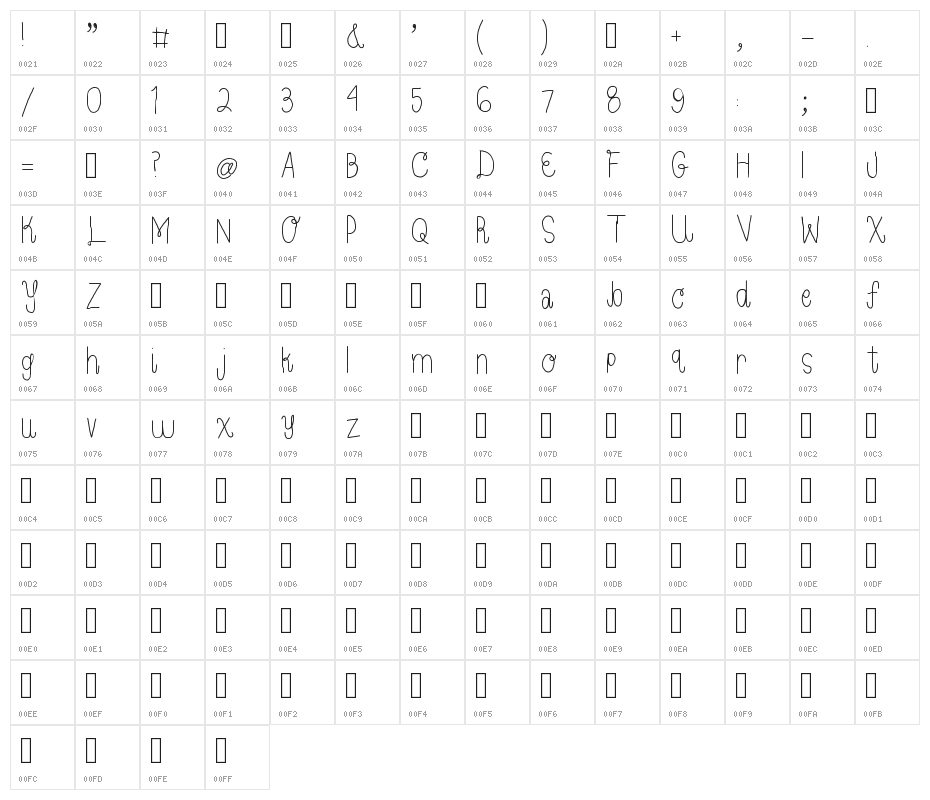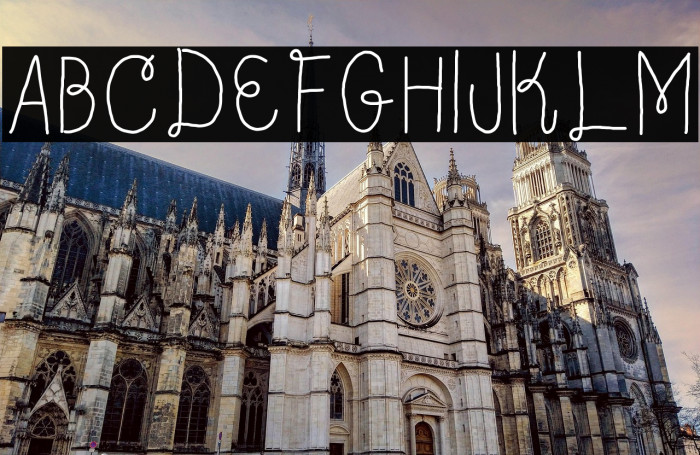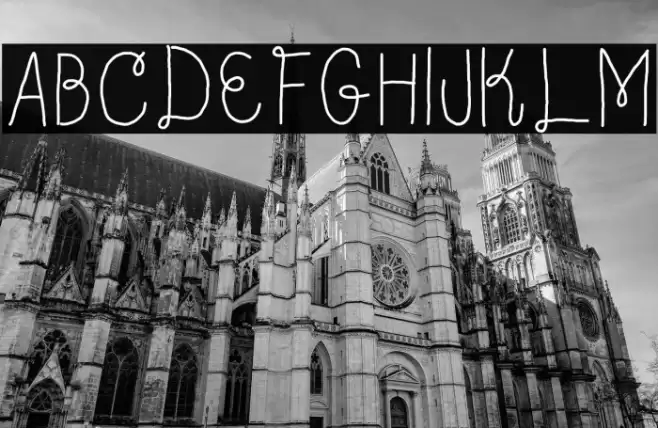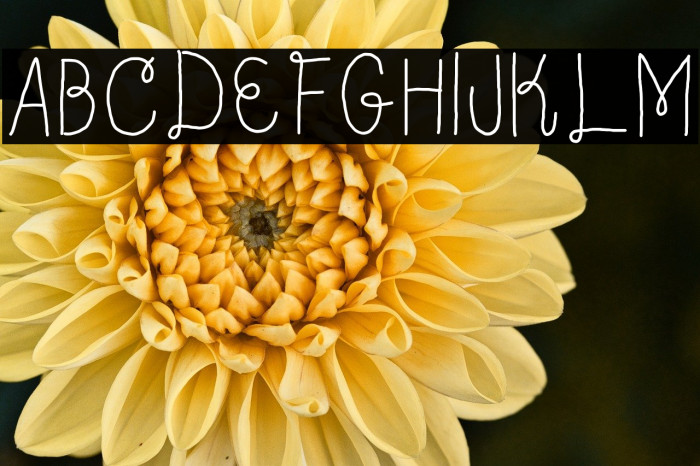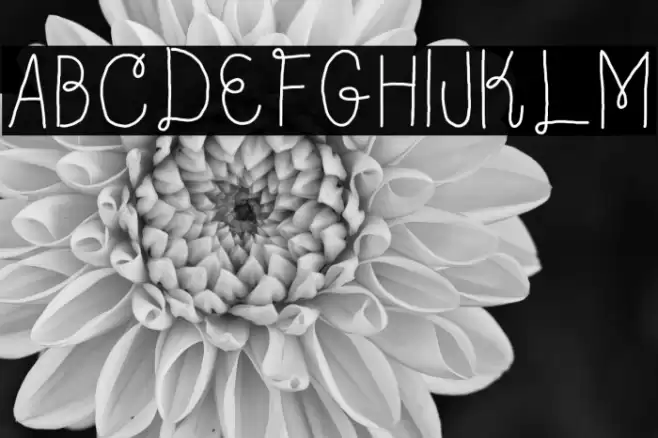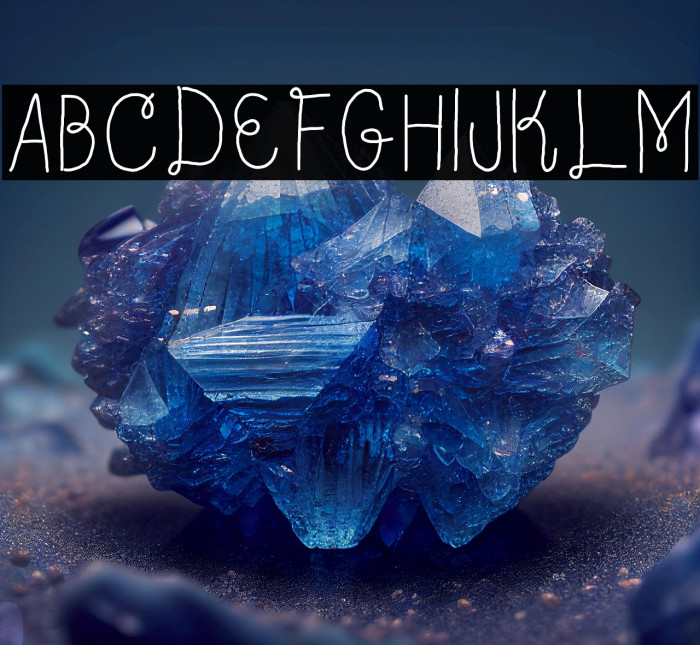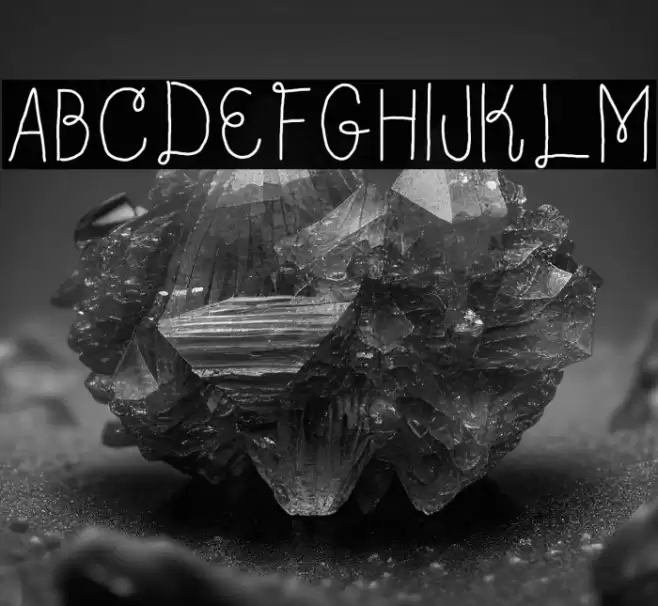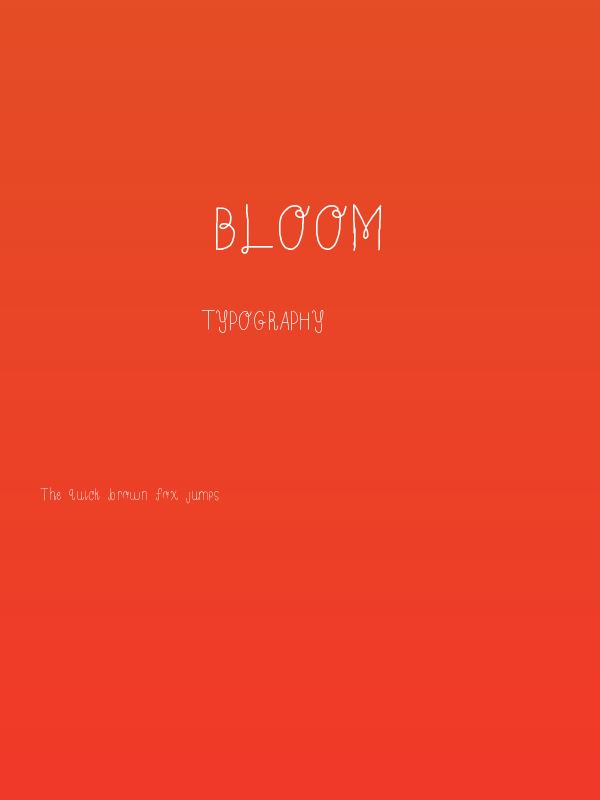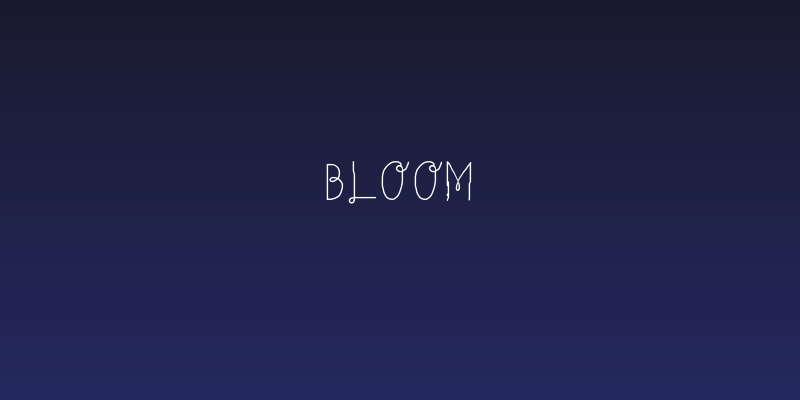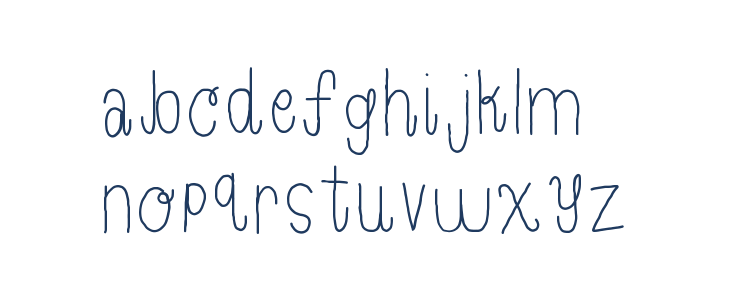
bloom Font
bloom Description
This font features a whimsical and playful handwritten style, characterized by its thin, elongated strokes and slightly irregular letterforms. The uppercase letters exhibit a charming, almost childlike quality with their tall, narrow shapes and subtle curves. The lowercase letters maintain a consistent flow, enhancing the font's casual and approachable appearance. Numbers and special characters follow the same playful aesthetic, making them suitable for creative and informal designs. The overall look is light and airy, with a sense of spontaneity and creativity.
| Proposed Projects | Ideal for children's books, greeting cards, playful branding, and creative invitations. |